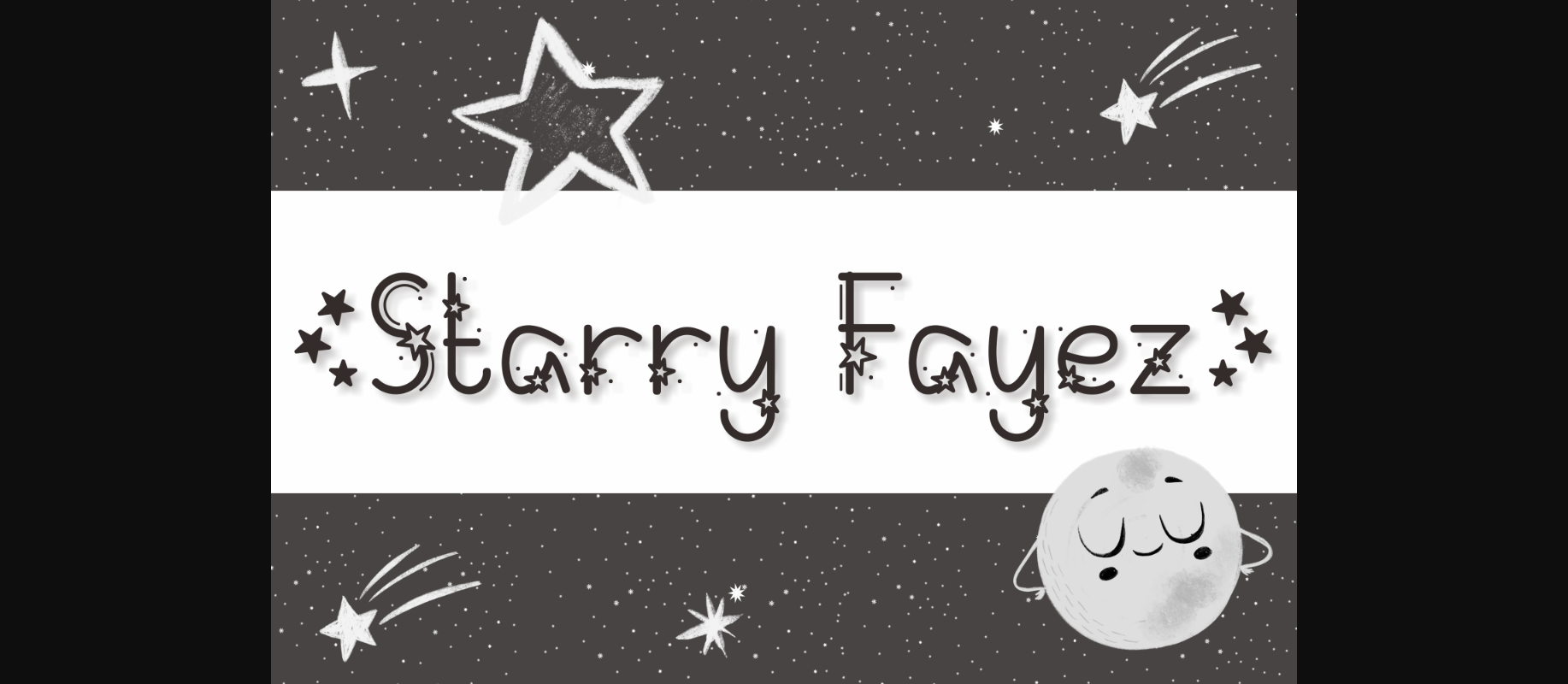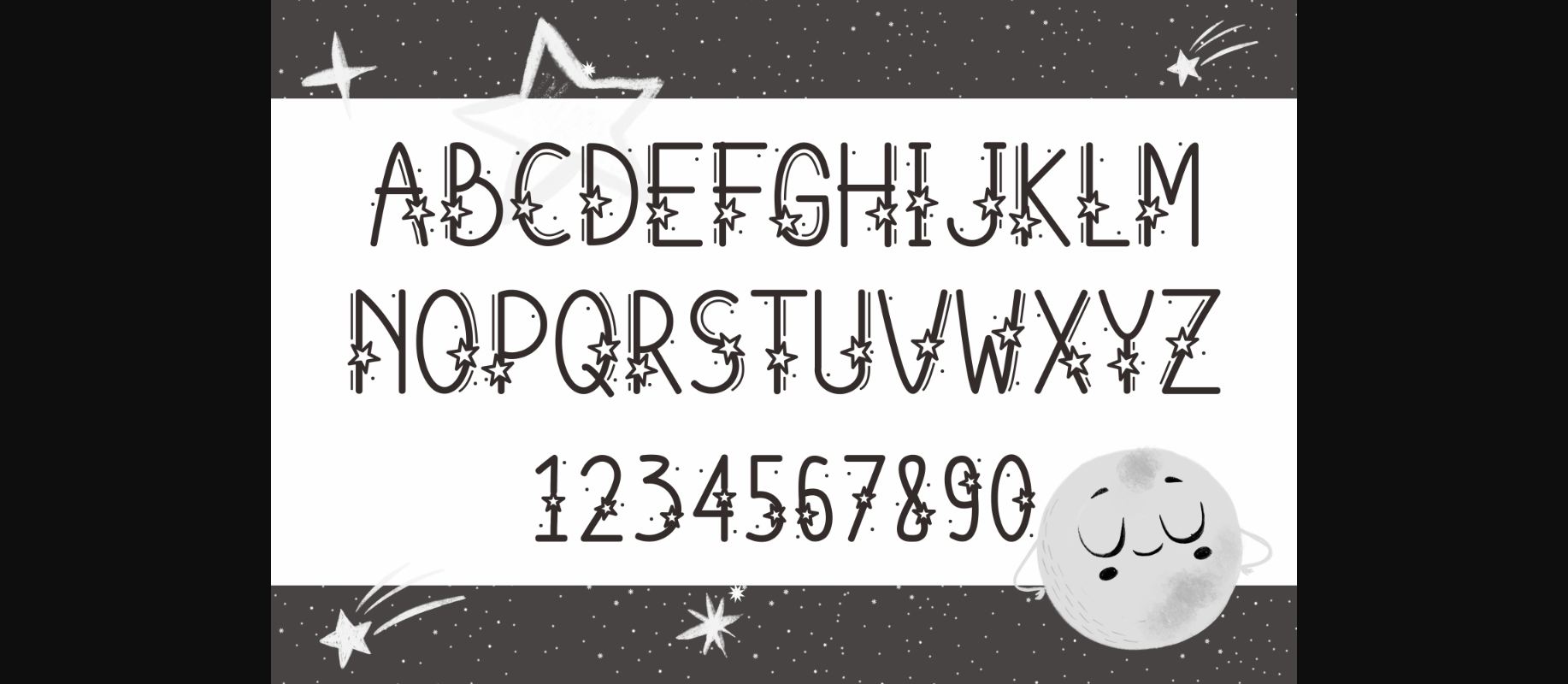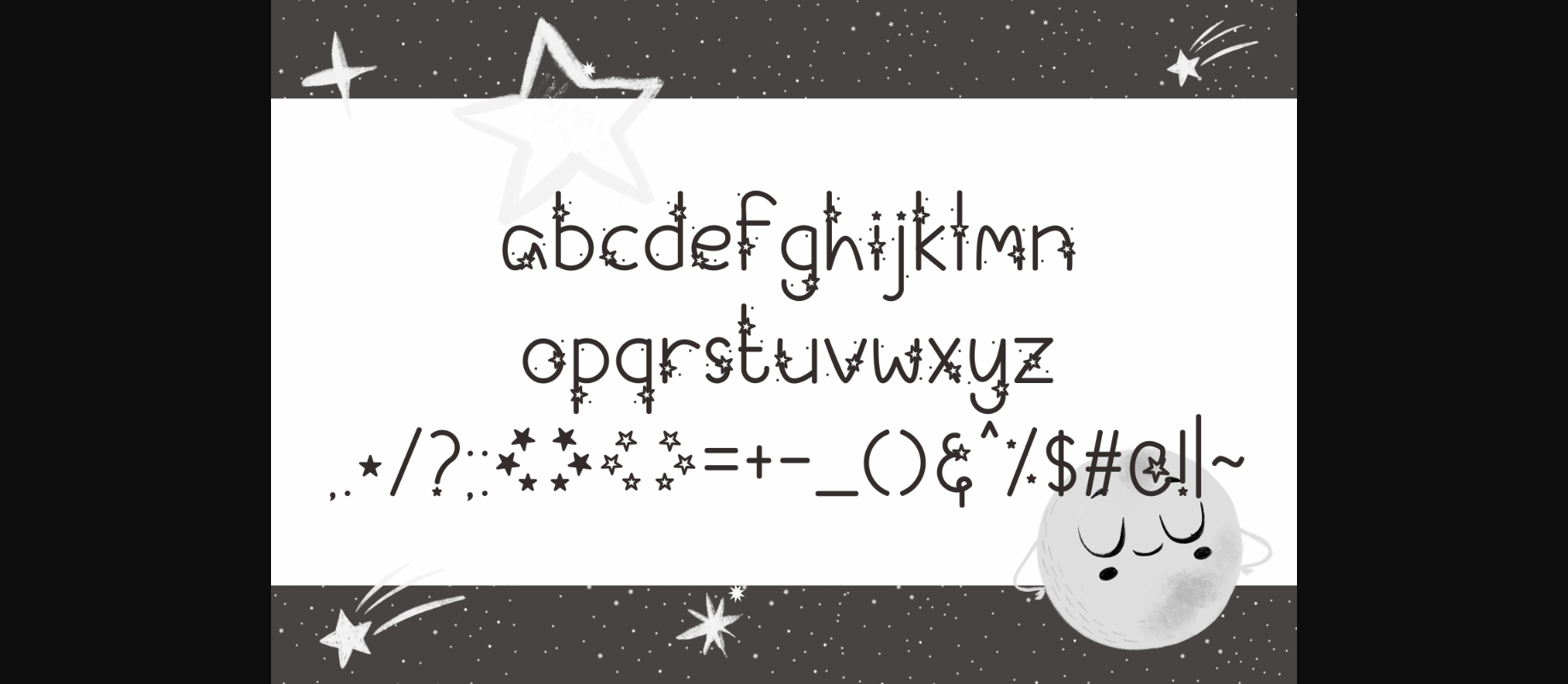
Starry Fayez Font
About Starry Fayez Font
Starry Fayez is a fancy decorative font. It features star-themed characters that will add a cute touch to your projects. Use this amazing font for a wide range of crafty ideas, from letterheads and titles, to stationery.